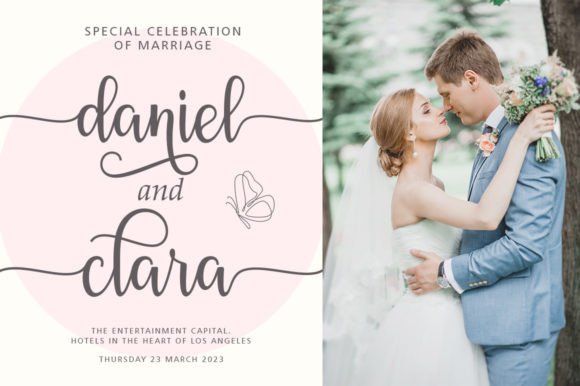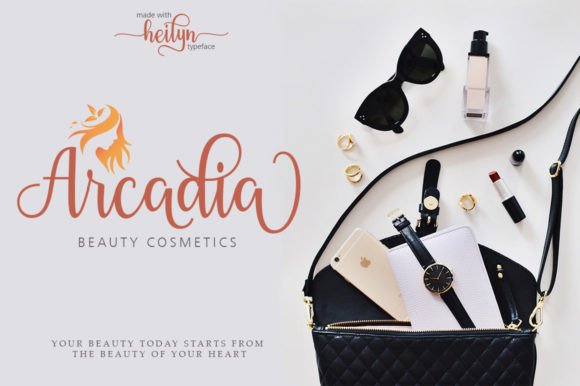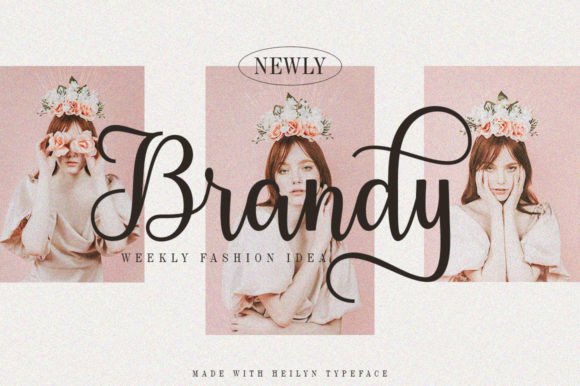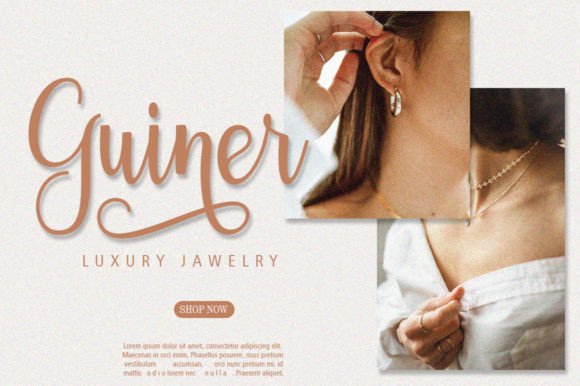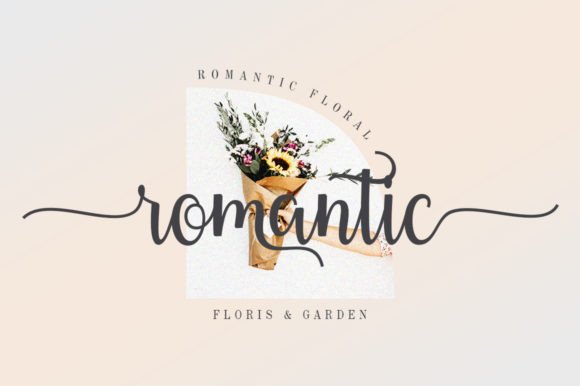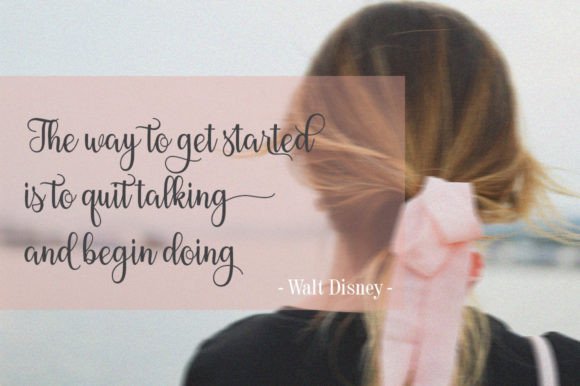
Introducing Heilyn Font: Elevate Your Designs with Elegance
In the world of typography, a font can make or break a design. For designers and crafters looking to add a touch of sophistication and elegance to their creations, Heilyn Font is an exceptional choice. This dazzling script font is meticulously crafted with high attention to detail, making it a versatile and valuable asset for any project.
What Makes Heilyn Font Stand Out?
Heilyn Font is not just any ordinary script font. Its neat and detailed design ensures that it can complement a wide range of topics and themes. Whether you’re working on a branding project, a wedding invitation, a packaging design, or a digital platform, Heilyn Font has the potential to elevate your creation and make it stand out.
One of the key features that make Heilyn Font incredibly user-friendly is its PUA (Private Use Area) encoding. This means that accessing all glyphs and ligatures is straightforward, allowing designers to have full creative control over their typography. With PUA encoding, you can easily access and use the extended character set, including swashes, alternates, and ligatures, to add a personal touch to your designs.
Enhance Your Designs with Heilyn Font
Heilyn Font’s versatility and elegance make it suitable for a variety of design applications. Here are some ways you can use Heilyn Font to enhance your creations:
- Branding and Logotypes: Create a lasting impression with a custom logo or brand identity that exudes sophistication and style.
- Wedding and Event Invitations: Add a touch of romance and elegance to your invitations, save-the-dates, and event materials.
- Packaging Design: Stand out on store shelves with beautifully designed packaging that features Heilyn Font.
- Digital Platforms: Enhance your website, social media graphics, or digital ads with a font that is both eye-catching and professional.
Why Choose Heilyn Font?
With so many fonts available, why choose Heilyn Font for your projects? Here are a few compelling reasons:
- Unique and Elegant Design: Heilyn Font offers a distinctive look that can help your designs stand out.
- Highly Versatile: Suitable for a wide range of projects, from print to digital.
- User-Friendly: PUA encoding makes it easy to access and use all the font’s features.
- Detailed and Neat: Crafted with attention to detail for a high-quality look.
Heilyn Font is more than just a script font; it’s a tool that can elevate your designs, making them more elegant, professional, and engaging. Its versatility, combined with the ease of use provided by PUA encoding, makes it an excellent choice for designers and crafters looking to add a touch of sophistication to their creations. Whether you’re working on a branding project, an event invitation, or digital content, Heilyn Font is sure to be a valuable asset in your design library.
Incorporate Heilyn Font into your next project and experience the difference it can make. With its dazzling script and highly detailed design, it’s poised to become your go-to font for all your design needs.